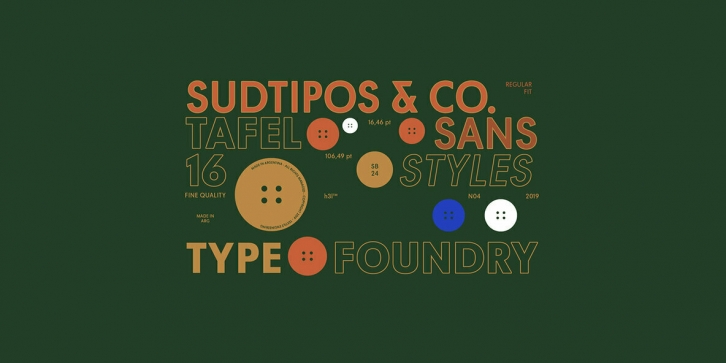
Tafel is Sudtipos’ contemporary take on early- to mid-century geometric fonts; it has the intrinsic qualities of a geometric without following the strict rules they customarily employ. Tafel is notable for its versatility as it works well in both small and display sizes; its sophisticated elegance and refined simplicity make it ideal for corporate identities, street signage, fashion brands, luxury packaging and much more.
From Thin to Black, Tafel is comprised of 8 weights, 3 sets of Small Caps with different x-heights (Big Caps, Small Caps and Petite Caps), many alternative glyphs and a complete range of figures including old-style figures with matching italics. The extended character set supports Central, Western and Eastern European languages.